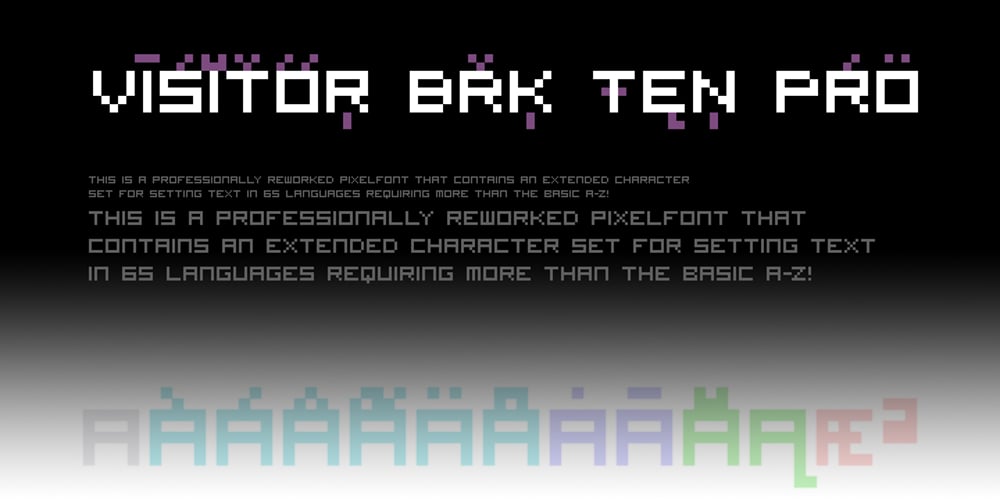
Visitor BRK Ten Pro
Visitor BRK Ten Pro font
Visitor BRK Ten Pro Font Family was designed by Roger S. Nelsson, Brian Kent and published by CheapProFonts. Visitor BRK Ten Pro contains 1 styles and family package options. This is the first true pixel-font released by CheapProFonts. It may not be the first font based on a 5×5 pixel grid, but it probably has the best language support. The glyphs have all been optimized for Flash (by making the pixel shapes slightly overlapping) and should render sharp and perfect when set in 10px size (or multitudes of 10). As with all pixelfonts: make sure to place the text at coordinates with whole numbers, and always use left (and NEVER centered) alignment. ALL fonts from CheapProFonts have very extensive language support: They contain some unusual diacritic letters (some of which are contained in the Latin Extended-B Unicode block) supporting: Cornish, Filipino (Tagalog), Guarani, Luxembourgian, Malagasy, Romanian, Ulithian and Welsh. They also contain all glyphs in the Latin Extended-A Unicode block (which among others cover the Central European and Baltic areas) supporting: Afrikaans, Belarusian (Lacinka), Bosnian, Catalan, Chichewa, Croatian, Czech, Dutch, Esperanto, Greenlandic, Hungarian, Kashubian, Kurdish (Kurmanji), Latvian, Lithuanian, Maltese, Maori, Polish, Saami (Inari), Saami (North), Serbian (latin), Slovak(ian), Slovene, Sorbian (Lower), Sorbian (Upper), Turkish and Turkmen. And they of course contain all the usual “western” glyphs supporting: Albanian, Basque, Breton, Chamorro, Danish, Estonian, Faroese, Finnish, French, Frisian, Galican, German, Icelandic, Indonesian, Irish (Gaelic), Italian, Northern Sotho, Norwegian, Occitan, Portuguese, Rhaeto-Romance, Sami (Lule), Sami (South), Scots (Gaelic), Spanish, Swedish, Tswana, Walloon and Yapese.